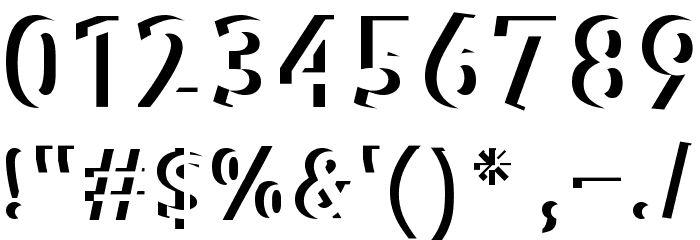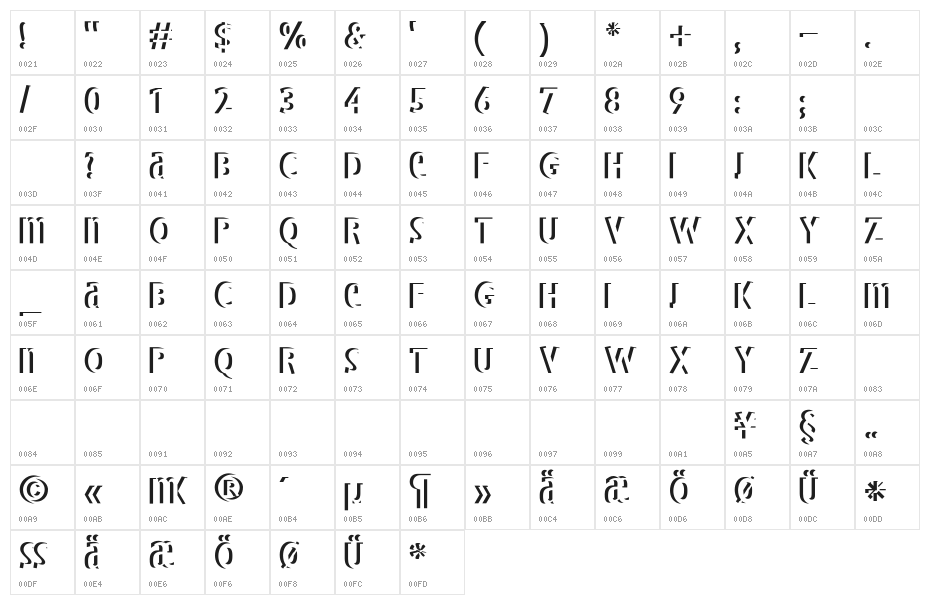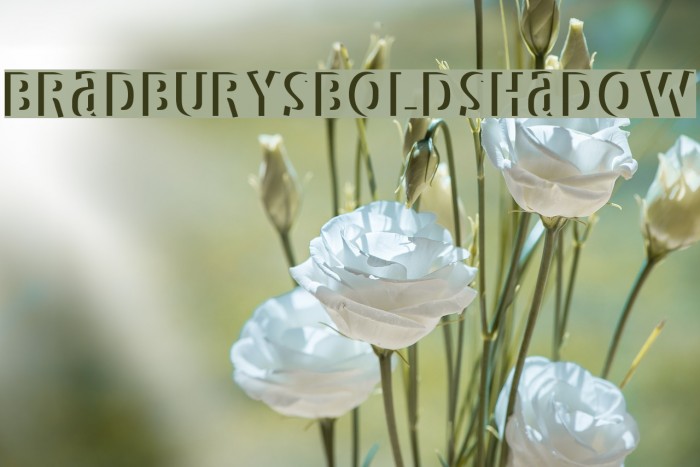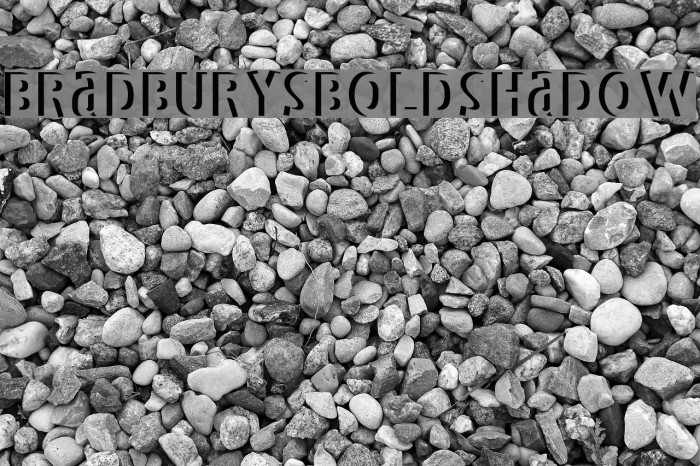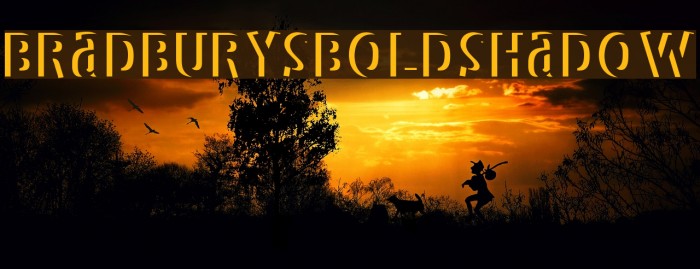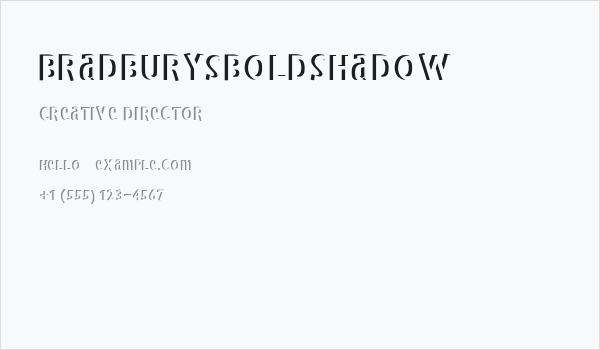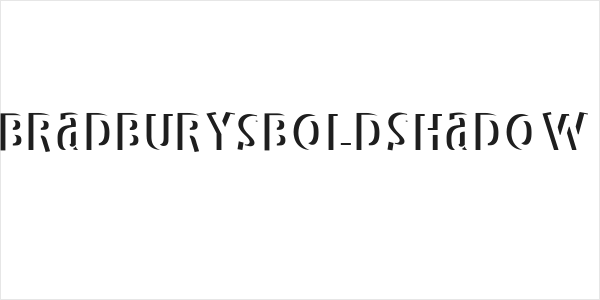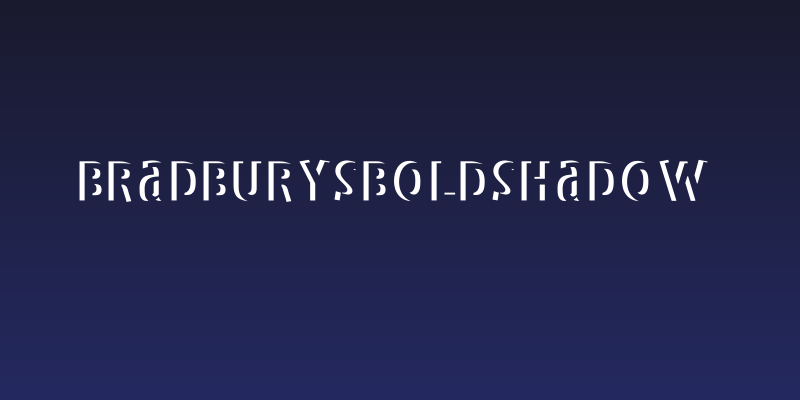
BradburysBoldShadow Font
BradburysBoldShadow Description
This font features a bold and striking design with a shadow effect that adds depth and dimension to each character. The letters are crafted with sharp, angular edges and a distinct geometric style, creating a sense of movement and energy. The shadow effect is consistent across all characters, enhancing the boldness and making the text stand out prominently. This font is ideal for creating eye-catching headlines and titles, where a strong visual impact is desired. The uppercase and lowercase letters maintain a uniform style, while the numbers and special characters are designed to complement the overall aesthetic.